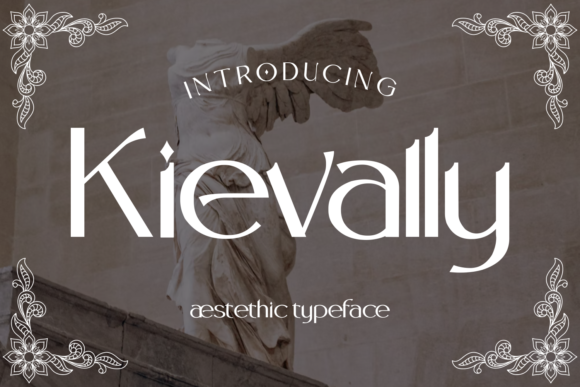
**Introducing Kievally Font: The Majestic Typeface for a Commanding Presence**
Embark on a typographic journey where grandeur and sophistication intertwine. Kievally Font, the epitome of display fonts, stands as a testament to the transformative power of typography.
With each stroke of this majestic typeface, experience the elegance that elevates your designs to new heights. Kievally's allure stems from its refined aesthetic, a harmonious blend of classicism and modernity.
Step into a world of limitless possibilities, where Kievally's versatility knows no bounds. Whether your canvas is a captivating brand identity, an alluring magazine layout, or a captivating logo, Kievally empowers you to make a statement that resonates.
Let the grandeur of Kievally grace your headlines, posters, and packaging. Its presence will captivate your audience, leaving an imprint that lingers long after the page is turned or the box is opened.
For those special moments that deserve an extra touch of sophistication, Kievally is your perfect companion. Adorn wedding invitations and cards with its refined charm, adding a touch of elegance that will be cherished for years to come.
**Kievally Font: Where Typography Reigns Supreme**
* Command attention with its regal presence
* Elevate your designs with its refined aesthetic
* Express your creativity with its limitless versatility
* Leave a lasting impression with its unforgettable impact
Embrace the power of Kievally Font and let your designs radiate with an aura of sophistication and elegance. Unlock a world where typography transcends the ordinary and becomes an extraordinary expression of your vision.